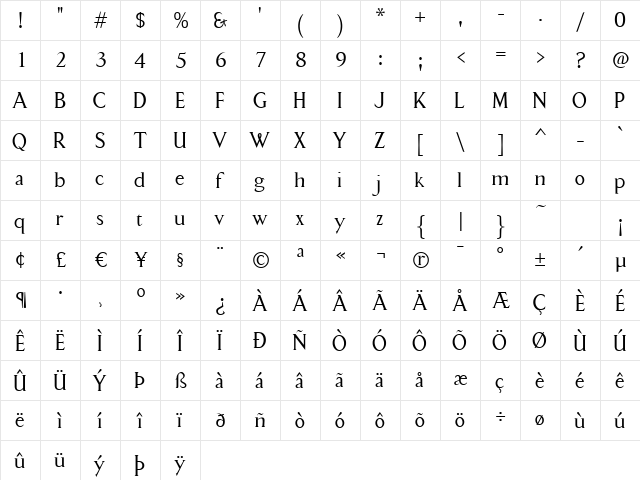
Anarcharsis Basic LF Regular
Design Context for Anarcharsis Basic LF Typeface
Anarcharsis Basic LF is a composed and adaptable typeface that performs quietly and consistently across a wide range of design contexts.